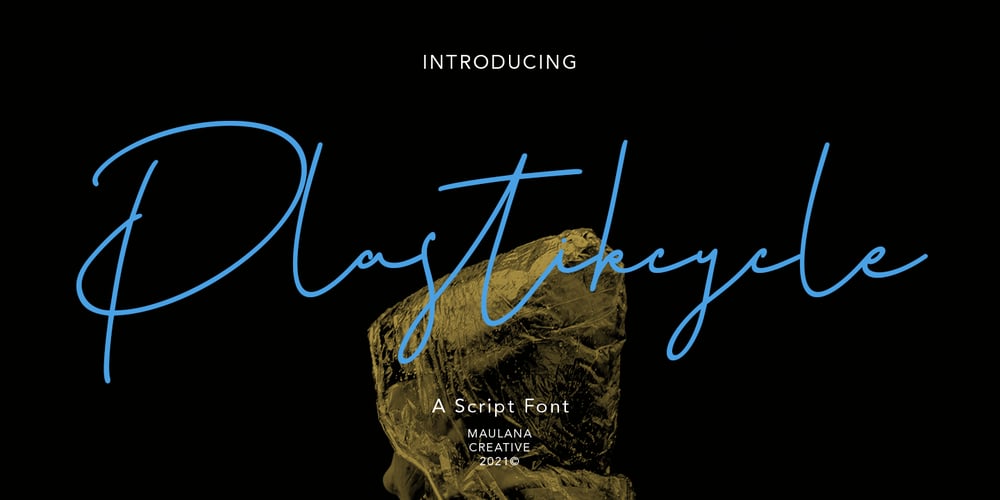
Plastikcycle
Plastikcycle font
Plastikcycle Font Family was designed by Gilang Maulana and published by Maulana Creative. Plastikcycle contains 2 styles and family package options. Plastikcycle is casual script font, with clean regular contrast stroke, slanted and fun character. It has Opentype features ligatures of character and alternates lowercases, To give you an extra creative work. Plastikcycle font support multilingual more than 100+ language. This font is good for logo design, Social media, Movie Titles, Books Titles, a short text even a long text letter and good for your secondary text font with sans or serif. Make a stunning work with Plastikcycle font.